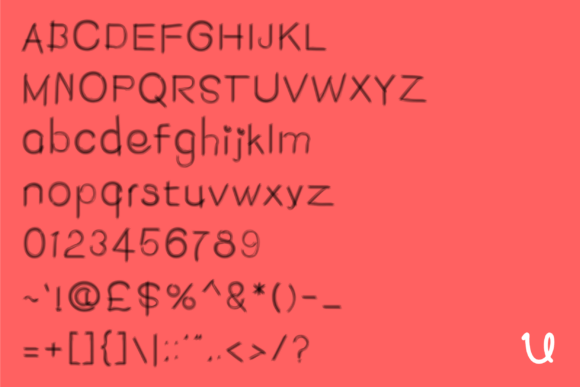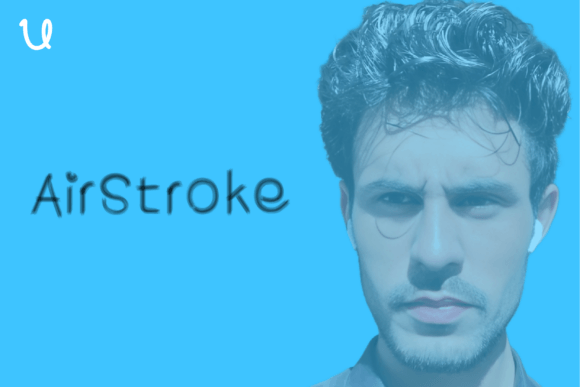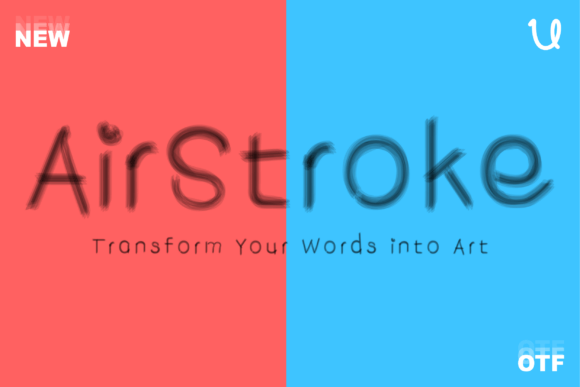
Introducing AirStroke: The Revolutionary Air Stock Font
Are you tired of using the same old fonts in your design projects? Look no further! Meet AirStroke, a state-of-the-art, dynamic typeface created by the talented designer Uzairr. This innovative font combines the elements of motion and fluidity, making it perfect for a wide range of design applications. In this article, we’ll dive into the world of AirStroke and explore its features, benefits, and uses.
The Concept Behind AirStroke
AirStroke is more than just a font – it’s an experience. Uzairr, the creative mind behind AirStroke, aimed to craft a typeface that embodies the essence of movement and fluidity. The result is a font that exudes elegance, modernity, and accessibility. AirStroke’s design is characterized by its smooth lines, gently rounded borders, and multiple color layers, which create a subtle interplay of transparency.
Key Features of AirStroke
- Versatility: AirStroke is an adaptable font that can be used in a variety of design projects, from branding and advertising to digital media and print.
- Elegant Lines: AirStroke’s smooth lines and curves create a sophisticated and modern aesthetic.
- Gently Rounded Borders: The font’s rounded borders add a touch of warmth and approachability to any design.
- Multiple Color Layers: AirStroke’s unique design features multiple color layers, creating a subtle interplay of transparency that adds depth and dimension to any design.
Benefits of Using AirStroke
So, why choose AirStroke for your design projects? Here are just a few benefits of using this revolutionary font:
- Stand Out from the Crowd: AirStroke’s unique design ensures that your projects will stand out from the crowd and grab attention.
- Enhance Brand Identity: AirStroke’s modern and elegant aesthetic makes it perfect for branding and advertising projects.
- Increase Versatility: AirStroke’s adaptability makes it suitable for a wide range of design applications, from digital media to print.
Who Can Benefit from AirStroke?
AirStroke is perfect for a variety of designers and crafters, including:
- Graphic Designers: AirStroke’s unique design and versatility make it an excellent choice for graphic designers looking to add a touch of elegance and sophistication to their projects.
- Digital Artists: AirStroke’s dynamic and fluid design makes it perfect for digital artists looking to create stunning visual effects.
- Crafters: AirStroke’s adaptability and style make it an excellent choice for crafters looking to add a personal touch to their projects.
In conclusion, AirStroke is a game-changing font that is sure to revolutionize the world of design. Its unique blend of motion, fluidity, and elegance makes it perfect for a wide range of design applications. Whether you’re a graphic designer, digital artist, or crafter, AirStroke is an excellent choice for anyone looking to add a touch of style and sophistication to their projects. So why wait? Experience AirStroke today and bring your creative projects to life!
- What is AirStroke? AirStroke is a state-of-the-art, dynamic typeface created by Uzairr, featuring elegant lines, gently rounded borders, and multiple color layers.
- What is AirStroke used for? AirStroke is perfect for a wide range of design applications, including branding, advertising, digital media, and print.
- Is AirStroke easy to use? Yes, AirStroke is designed to be user-friendly and adaptable, making it easy to incorporate into your design projects.